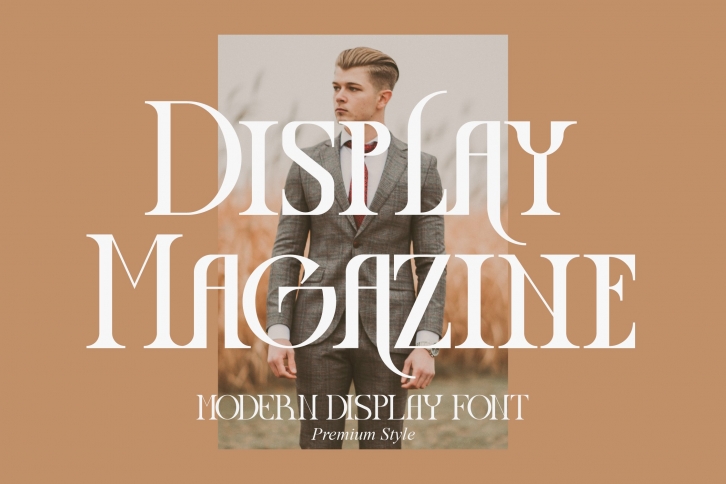
Display Magazine is a trendy and unique font with an authentic style. It was designed by Pricilia Design and it's a great choice for creative people who need such a font. It was released on September 6, 2022 and the file size is 4.57 MB. Display Magazine will add an organic vibe to any design idea!